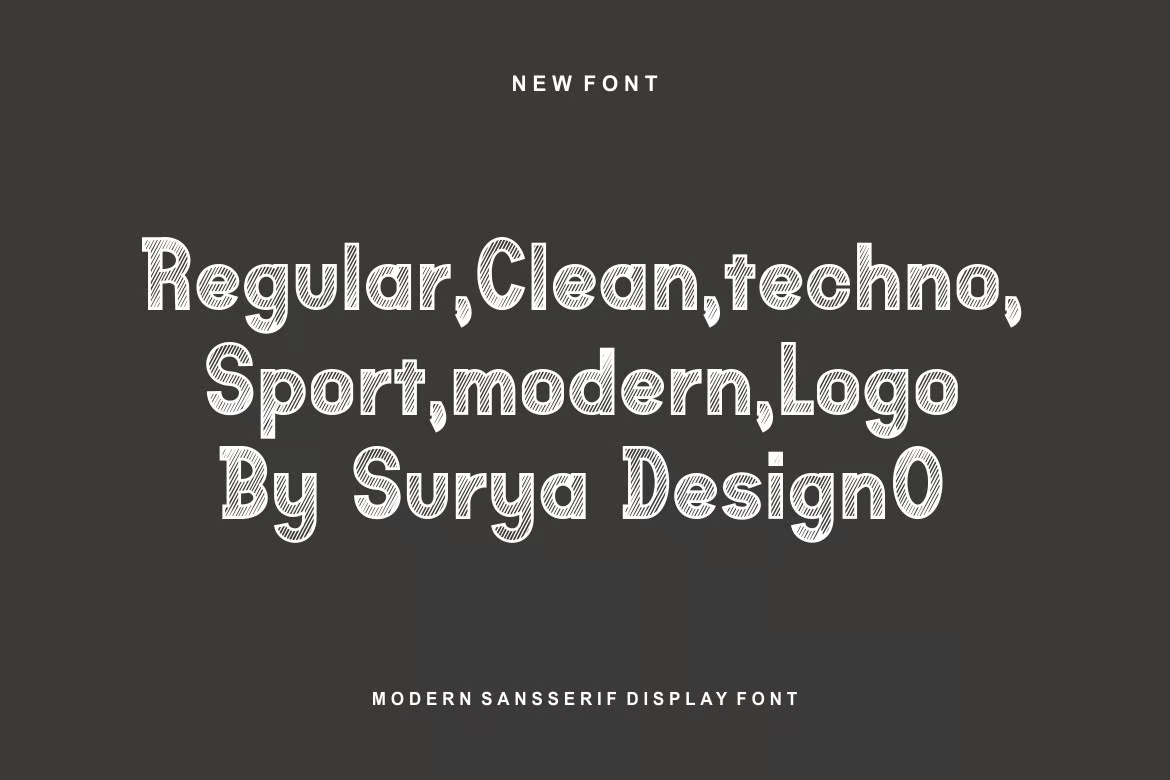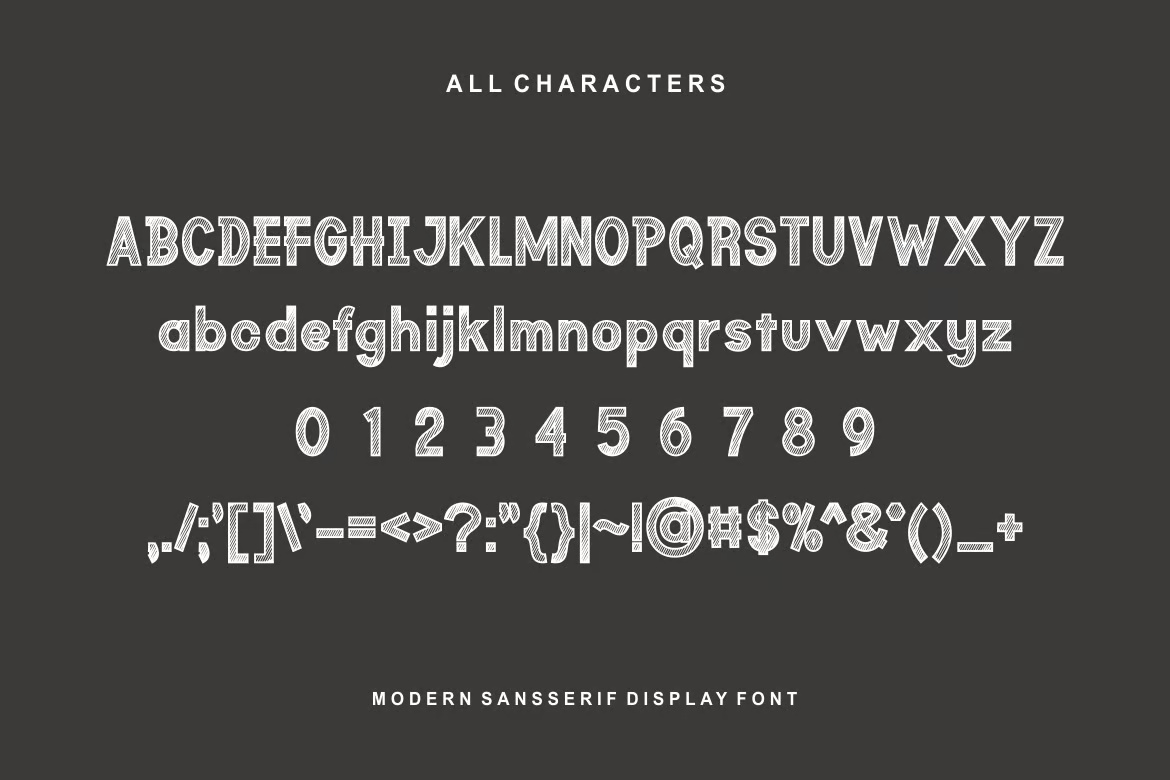
Happy Lines Font
Happy Lines is a bold and authentic modern display font that commands attention. With its strong lines and confident character, it’s perfect for branding projects such as logos, t-shirt designs, esports graphics, product packaging, and eye-catching headlines. Whether used in print or digital formats, this font stands out in a wide variety of creative contexts and delivers a dynamic, professional impression.
Happy Lines – Sans Serif Line Font